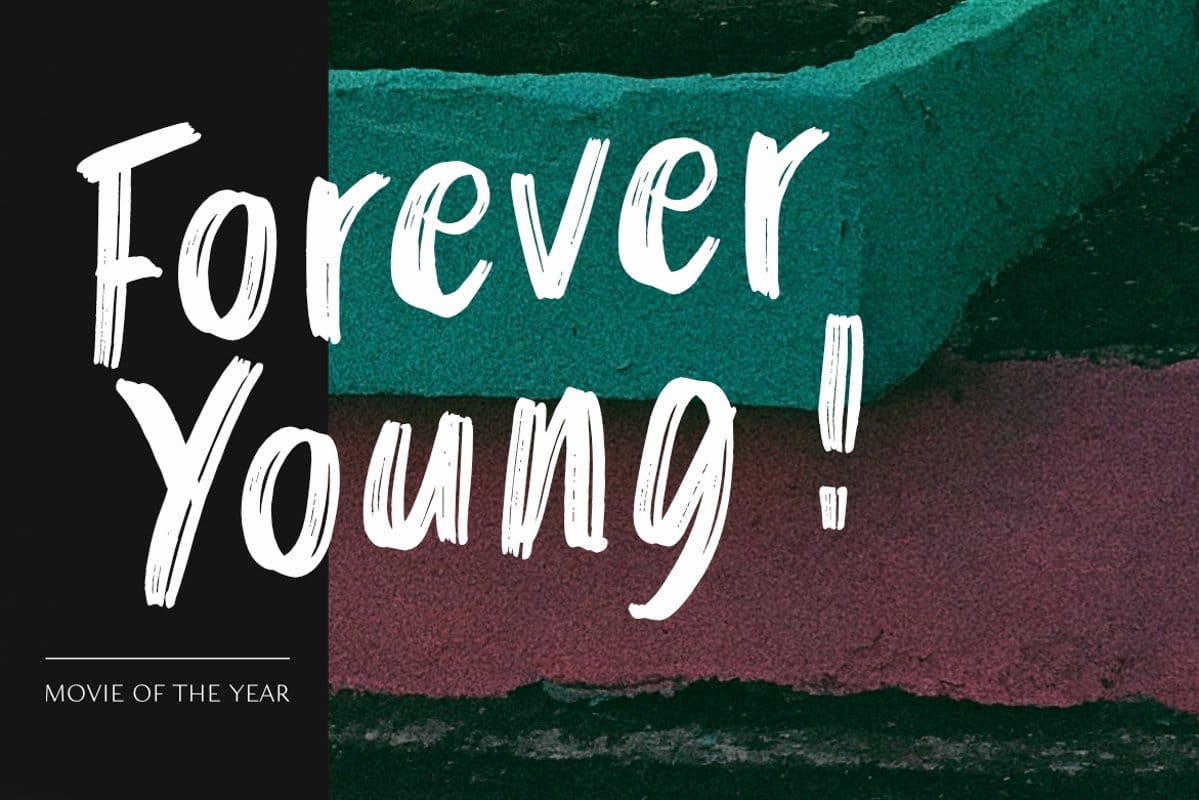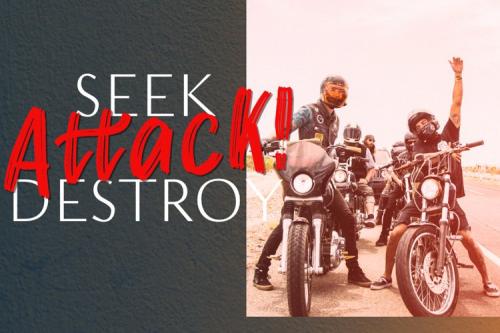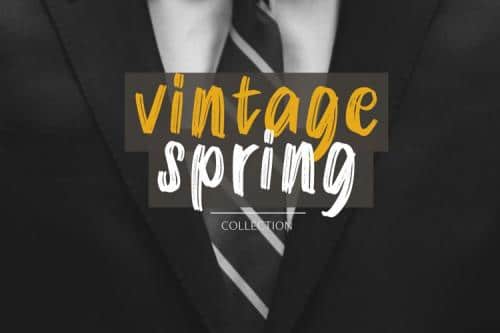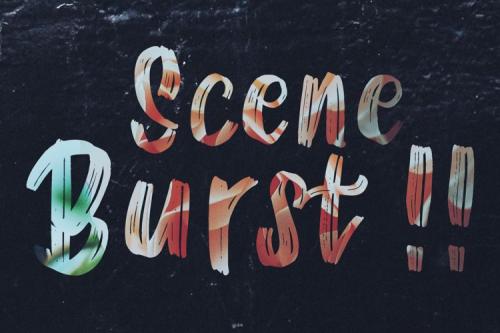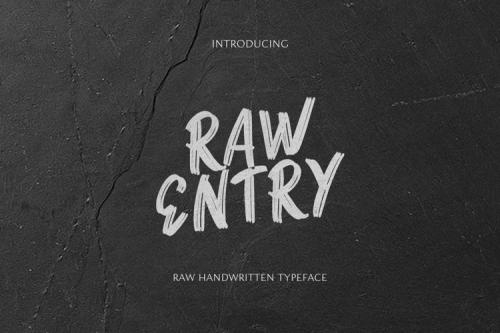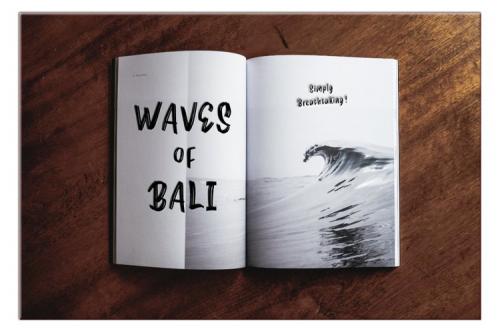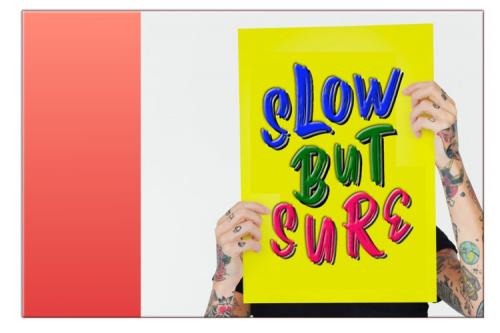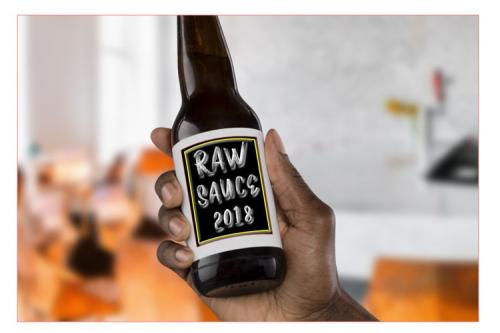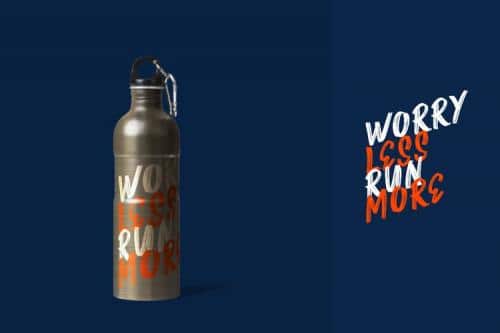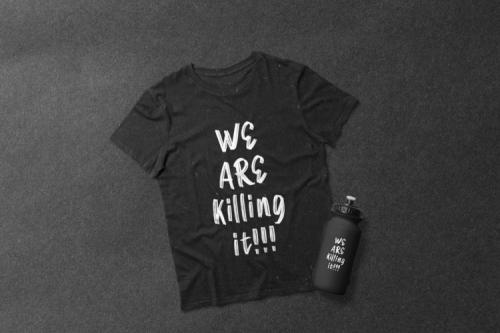
Raw Entry is a stunning and authentic handwritten font with a natural feel. Get inspired by its unique charm, and turn any design project into a true stand out.Â
Very suitable for t-shirts, posters, advertising and many more. It comes with Uppercase, lowercase, numerals and punctuations.